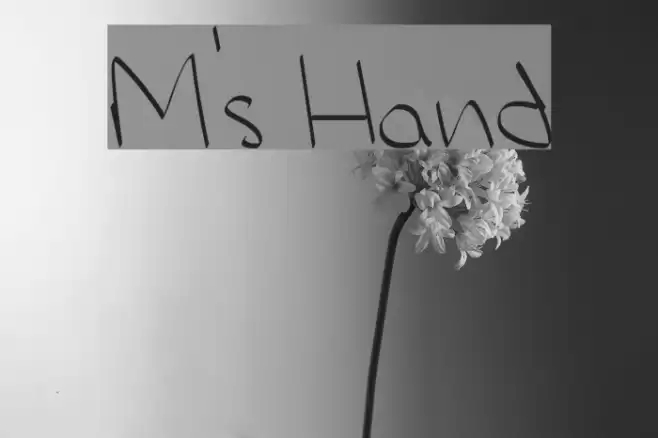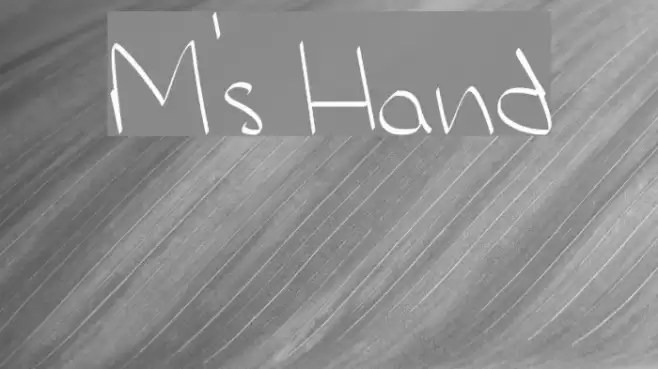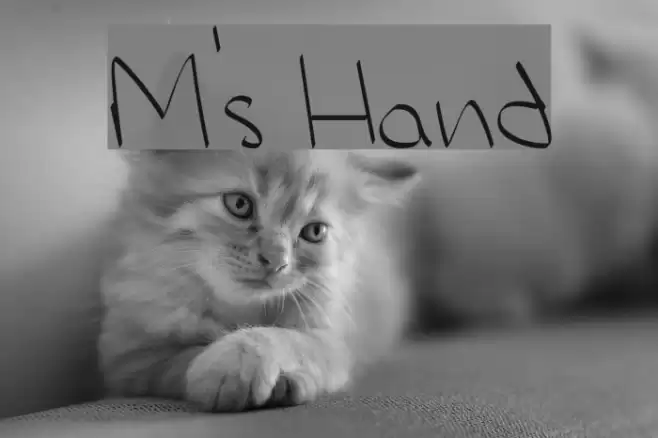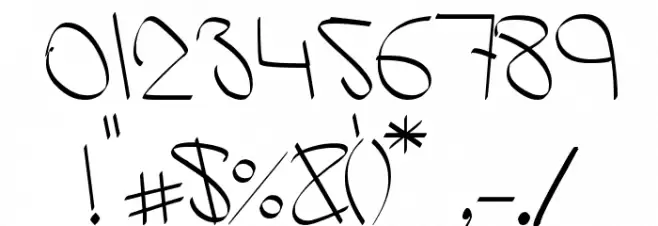
M's Hand Font
M's Hand Description
This font features a playful and whimsical handwritten style, characterized by its fluid and slightly irregular strokes. The uppercase letters are tall and slender, with a slight slant that adds a dynamic feel. Lowercase letters maintain a consistent flow, with some characters like 'g' and 'y' having distinctive loops that enhance the font's charm. The numerals are uniquely styled, maintaining the font's overall playful aesthetic. Special characters are creatively designed, fitting seamlessly with the rest of the set. This font exudes a casual and friendly vibe, making it ideal for projects that require a personal touch.
A playful, whimsical handwritten font with fluid, slightly irregular strokes from Handwritten fonts.
- Proposed Projects: Ideal for greeting cards, invitations, personal branding, and creative projects that require a casual, friendly touch.
- Overall Style: Casual, Playful
- Use Case: Headlines, Invitations, Personal Branding